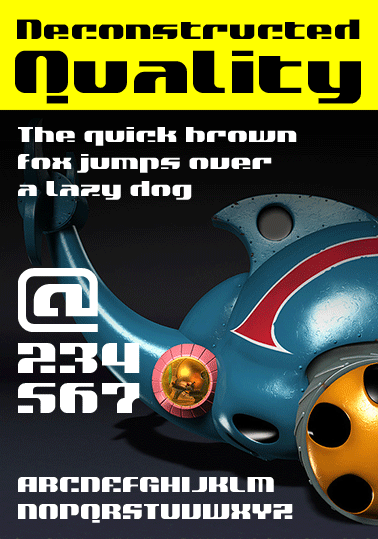
• A "deconstructed" exercise. I got the idea when I fontstructed in a grid that turned out to be a bit narrow. I could only place two of three horizontal lines where I wanted them, so I decided to see what happened if I simply skipped the third. The result turned out to be quite legible even though many glyphs had gaps where the important baseline should be. I especially liked the lower case letters. The concept is presumably not unique though...